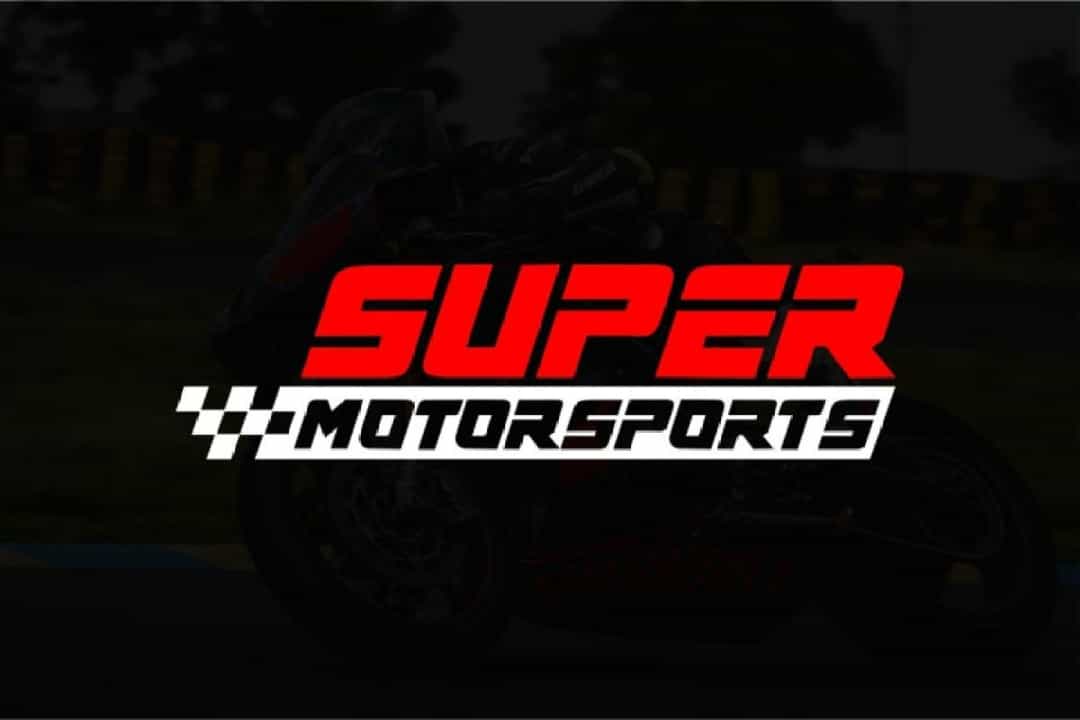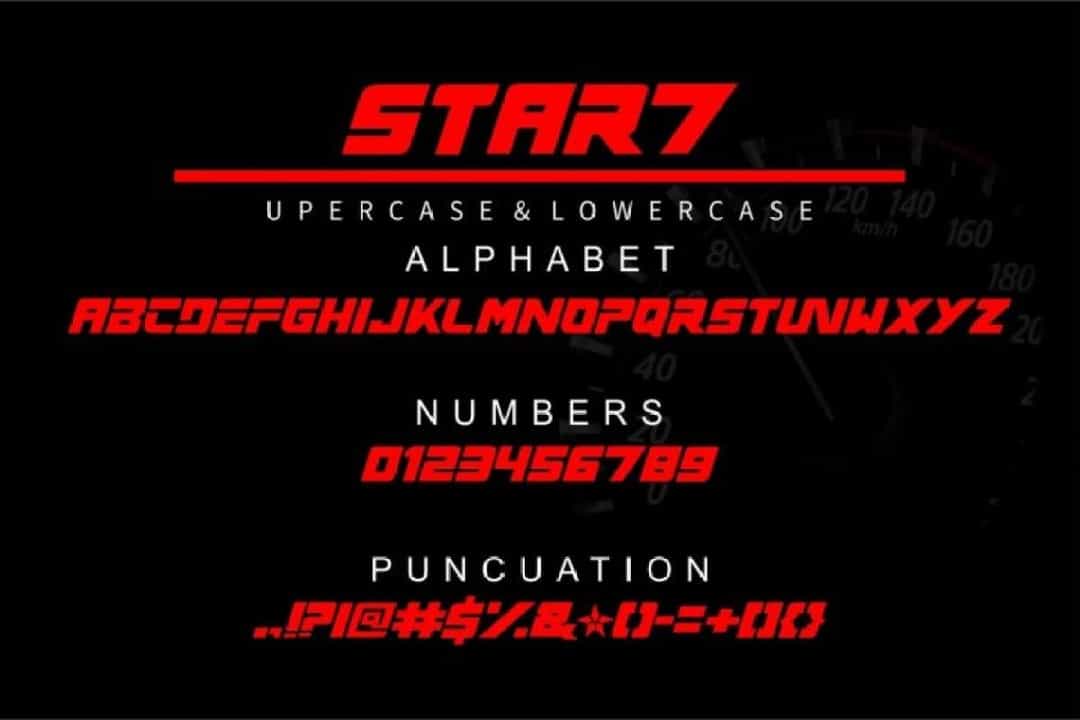
The STAR7 fonts are robust racing fonts that are derived from the culture of racing and give you many options for the new design. It is perfect in the creation of racing logos, sports teams, or construction companies.